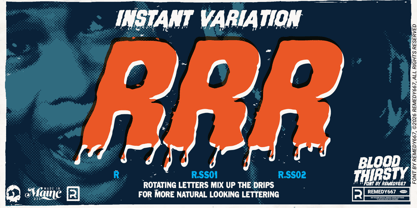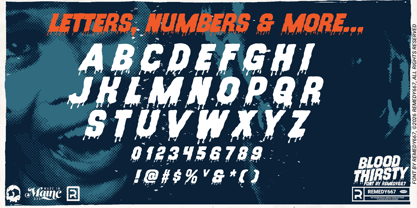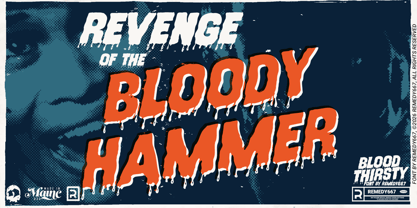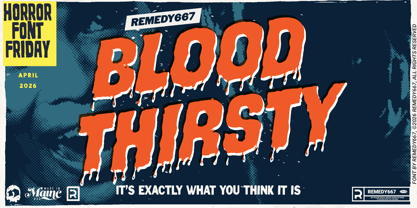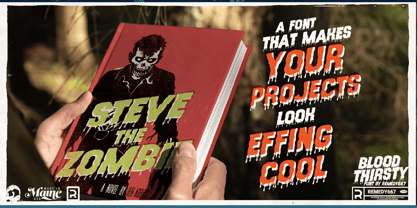
Blood Thirsty 667
by Remedy667
The Blood Thirsty 667 Font Family was designed by Nick Polifroni and published by Remedy667. Blood Thirsty 667 contains 1 styles. More about this family
Blood Thirsty is here to quench your craving for bold, blood drenched typography! Torn straight from the savage lettering in the press book for the 1971 film, Blood Thirst. Blood Thirsty drips with a vintage menace and grabs attention like classic drive-in advertisement. Thick, hand-drawn strokes and long streaming drippy flair, Blood Thirsty is built for titles that demand attention. Each letter writhes with subtle variation, thanks to its shifting alternates, giving your words that freshly-splattered look. Blood Thirsty doesn’t just speak… it bleeds! Features Bold, drippy hand-drawn lettering for high-impact titles Contextual alternates for natural, rotating letter variation Multilingual support for worldwide horror design